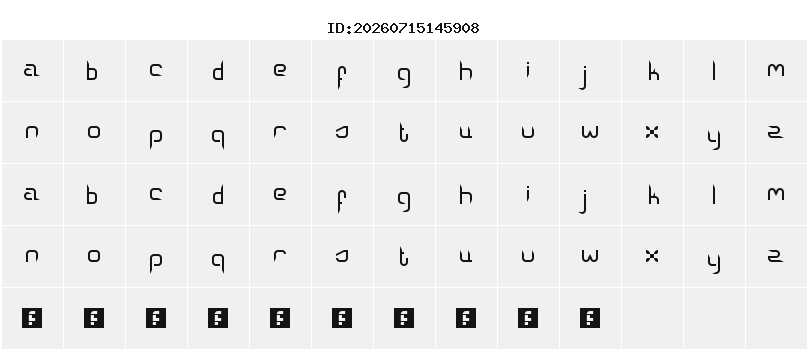
astahcupcake Preview
• Font Name: astahcupcake
• Font ID: FontStruct astahcupcake
• Full Font Name: astahcupcake Regular
• PostScript Name: astahcupcake
• Character Count: 53
• Designer: xastahcupcake
• Description: “astahcupcake” was built with FontStruct
About astahcupcake.ttf
astahcupcake.ttf is a modern, elegant sans-serif font designed for ultimate readability and visual harmony. Perfect for branding, headlines, web design, and print materials.